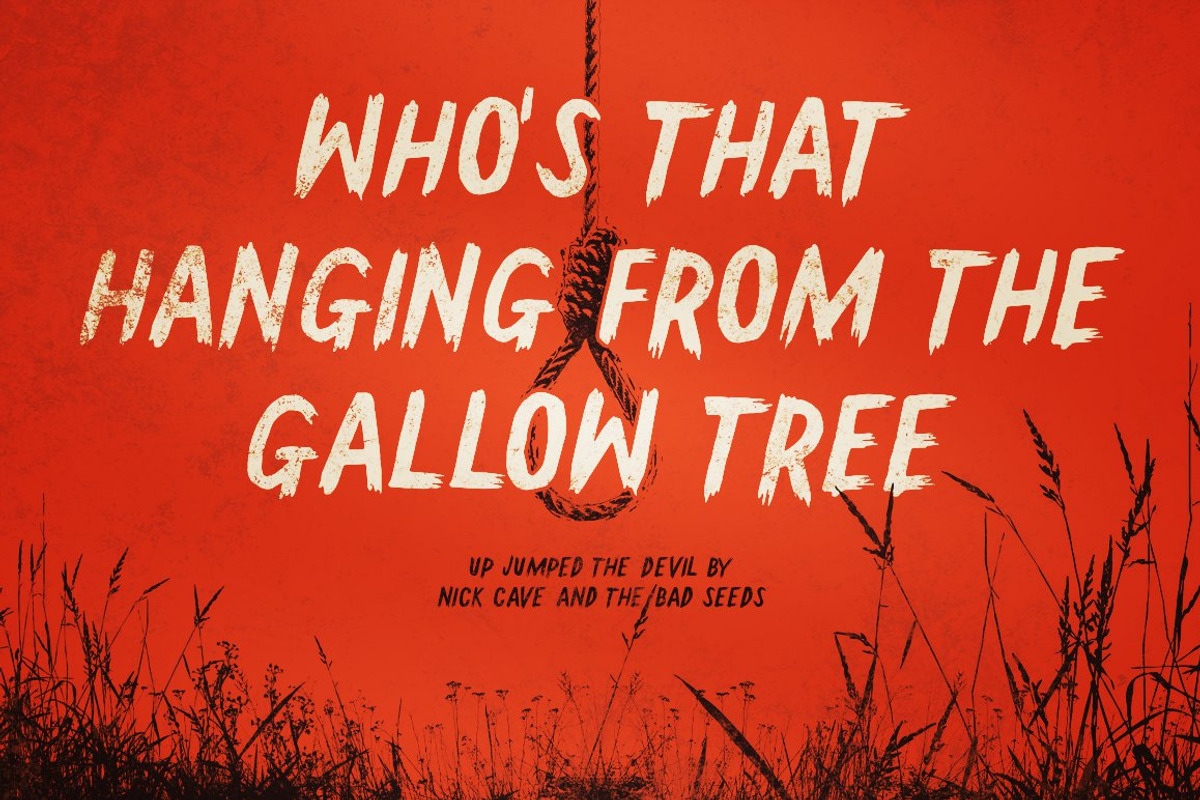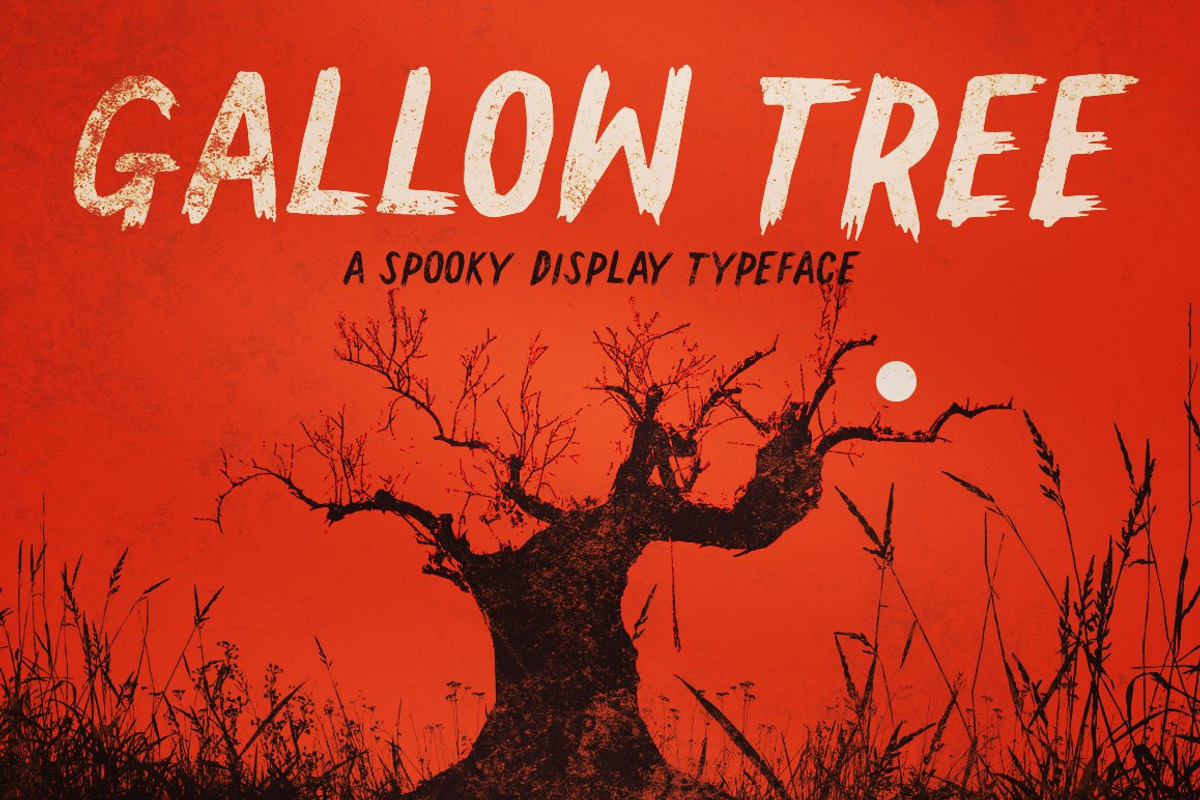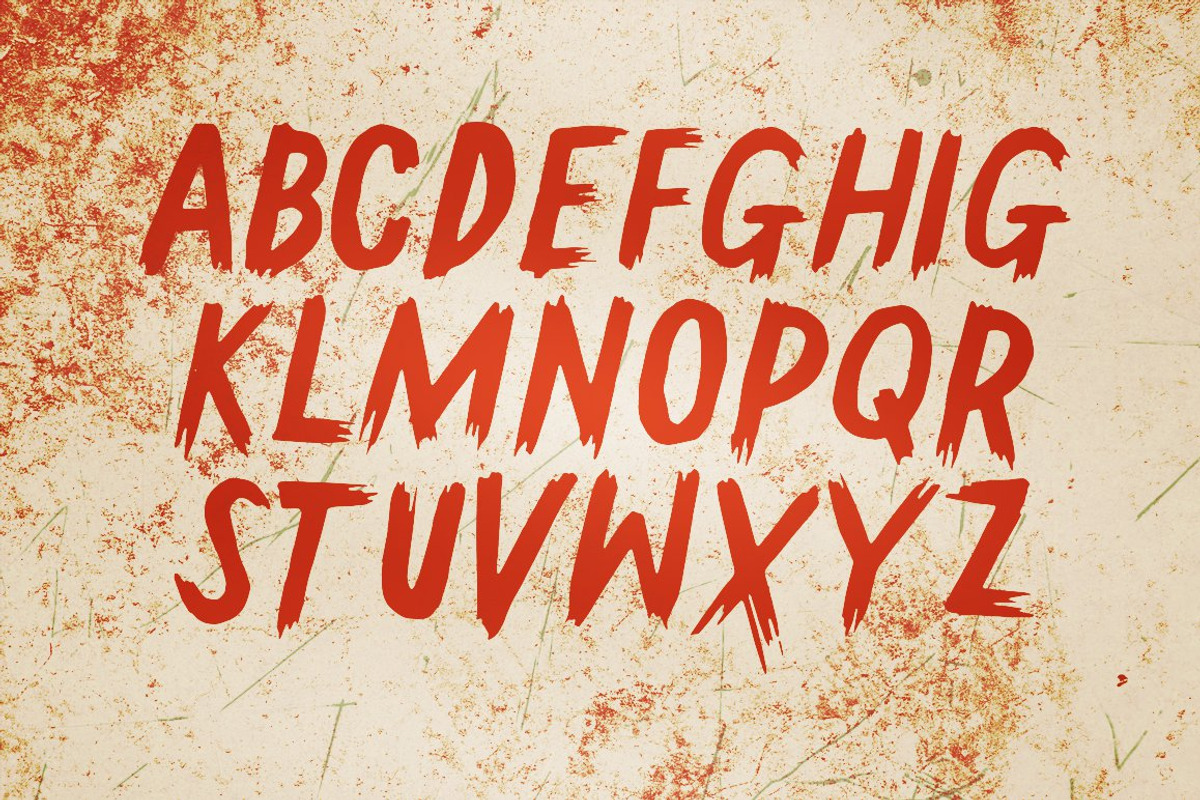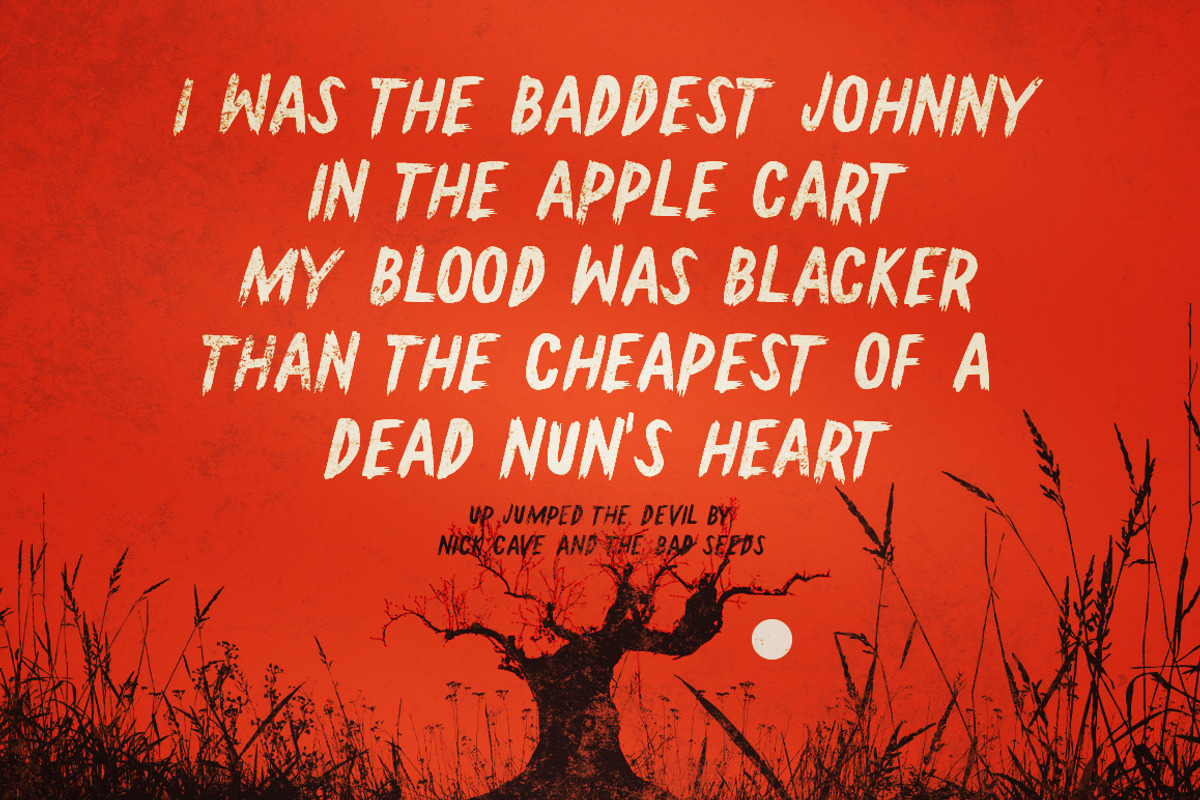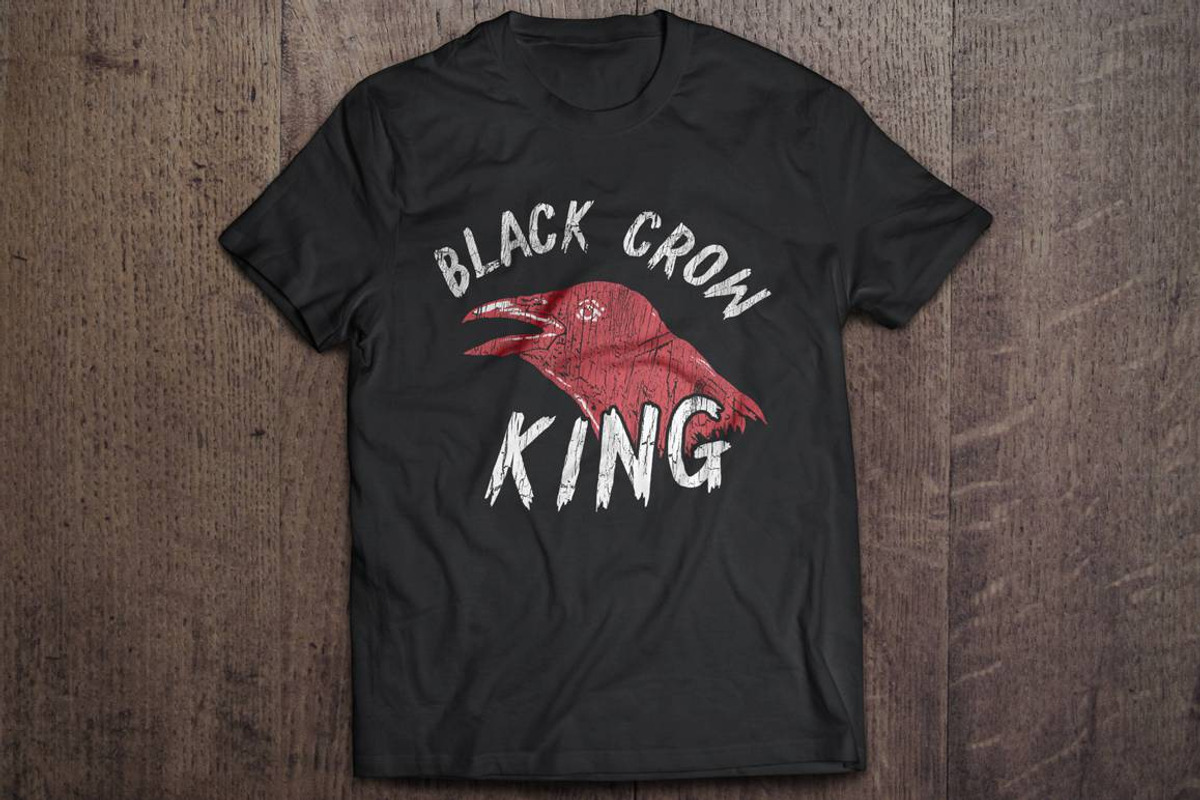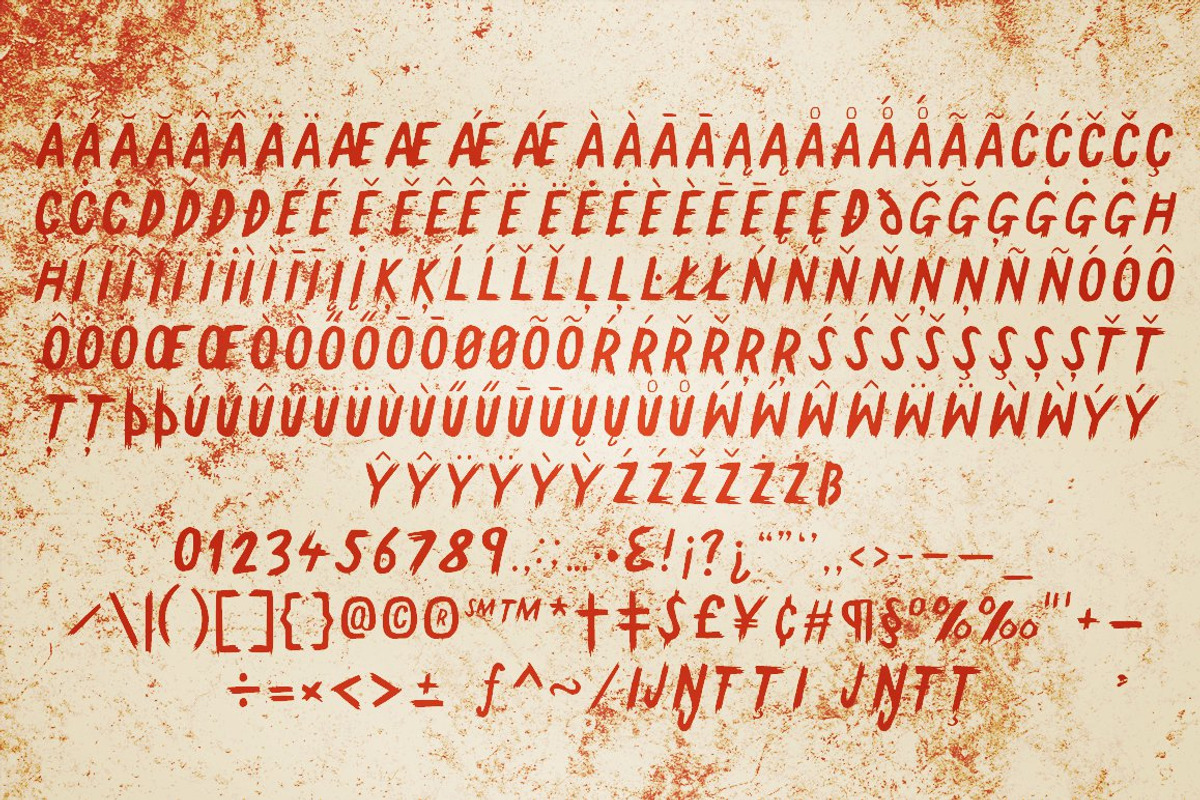
Display font Gallow Tree
Gallow Tree was inspired by the classic horror posters like creature from the black lagoon and house of Dracula. I love those old horror movies and the classic posters.
So the font is kind of creepy, but it’s still lively and very legible. I drew this with a Faber Castell brush pen, the pen strokes were quick giving the impression of movement.
It's a display typeface that only have uppercase letters, numbers and punctuation.